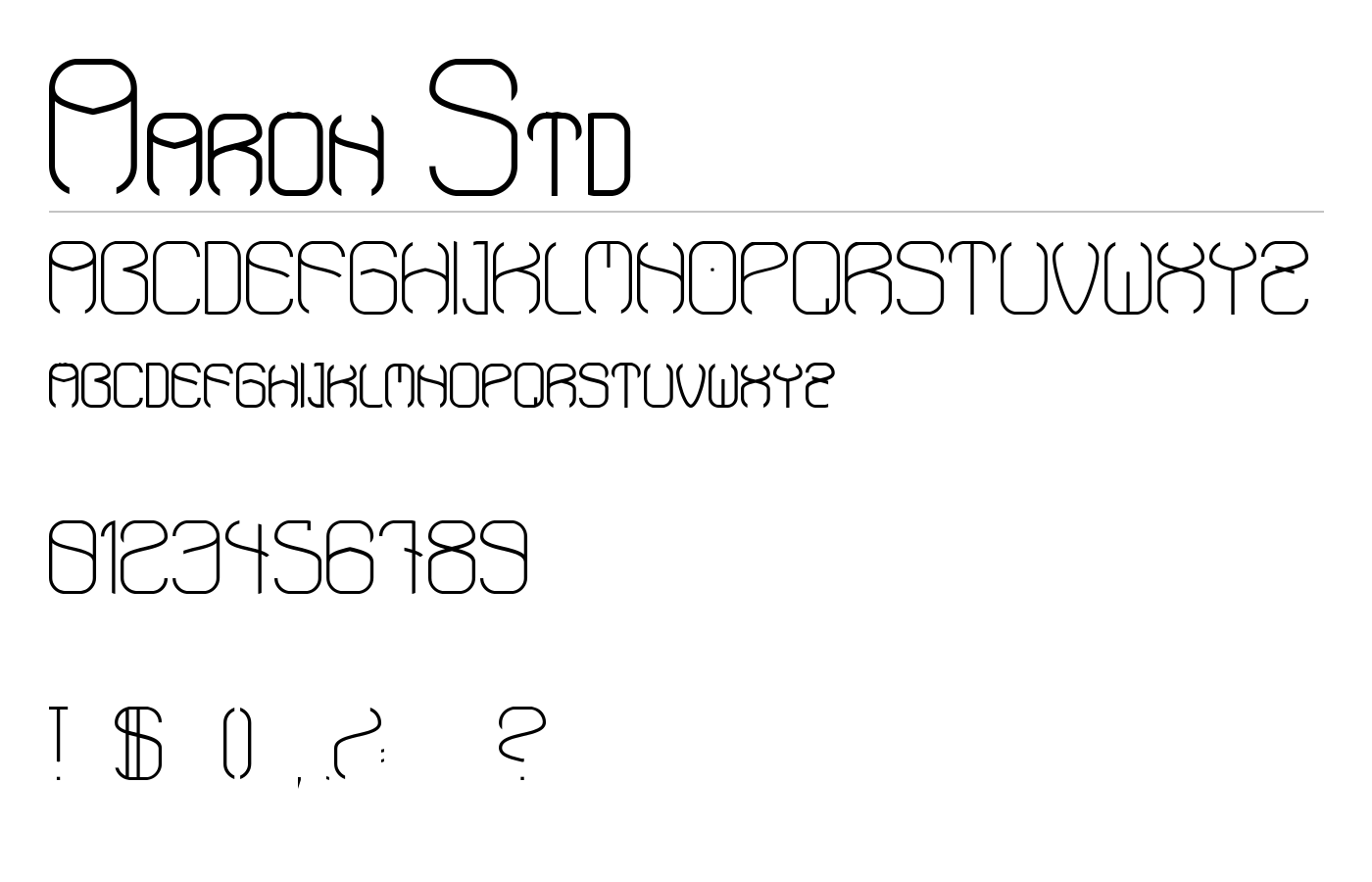
Aaron Std is a distinctive, geometric sans serif font characterized by its thin, rounded strokes and reduced contrast, giving it a clean, modern, and somewhat futuristic look. Its tall, narrow letterforms with unique rounded corners and delicate line work make it an excellent choice for contemporary branding, tech-inspired logos, and stylish headlines that require a sleek yet approachable aesthetic. This font works best in large sizes where its airy, minimal design can stand out and convey innovation and sophistication.
Aaron Std Font
About Aaron Std Font